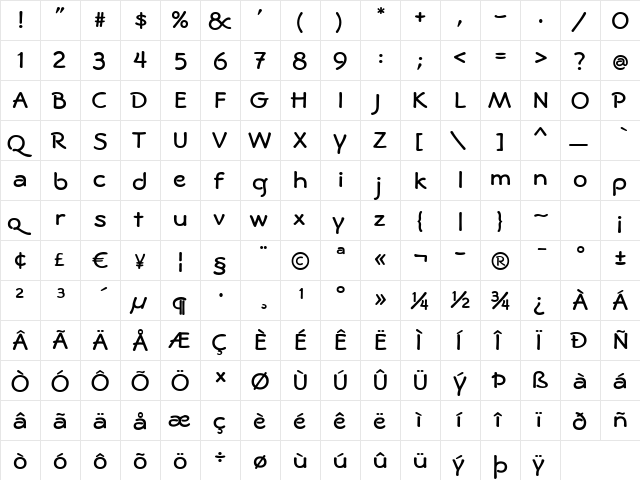
Gargoyle XBd ExtraBold
Design Context for Gargoyle XBd Typeface
Gargoyle XBd offers clean, dependable letterforms without strong stylistic allegiance, making it a practical choice for designers who need flexibility. The heavy weight commands attention and anchors typographic hierarchies.